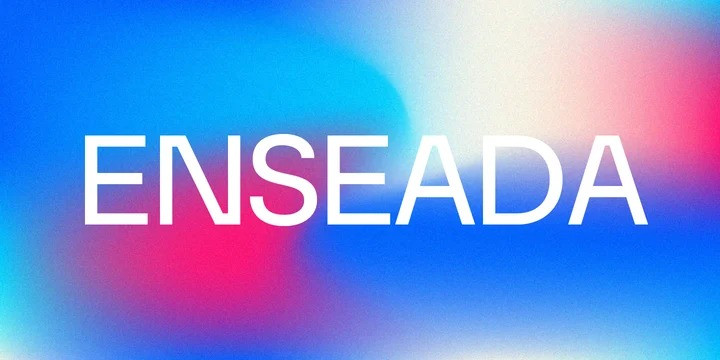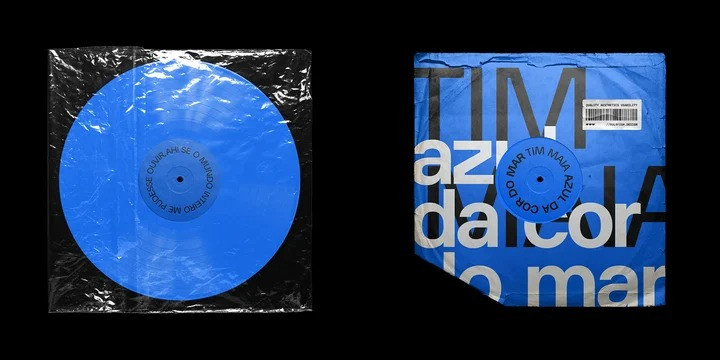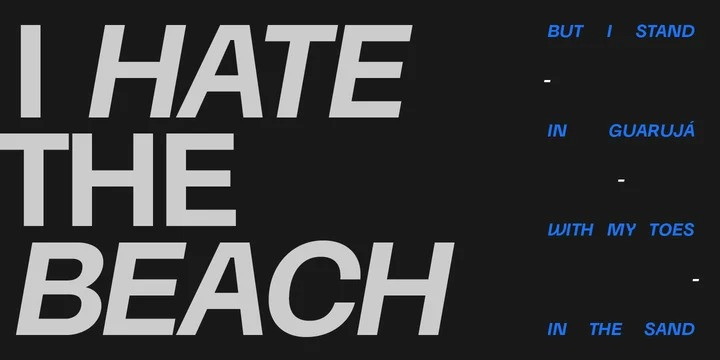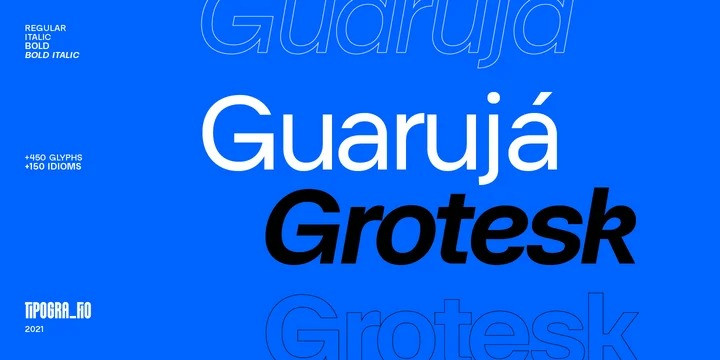
Guaruja Grotesk Font
Guaruja Grotesk Sans Serif Font
This font is a geometric sans-serif family with classically influenced proportions, calligraphic elements, and sporting roots. Made from font designer named Tipogra Fio. This font is the first Tipogra Fio family for headlines & body copy. The grotesque form factor is much inspired in the Modernism movement from the mid of 20th Century but the Italic weight is a great cursive contrast aside the Roman ones so you can make very brutalist layouts or craft humanist projects, without losing the communication between all the family.